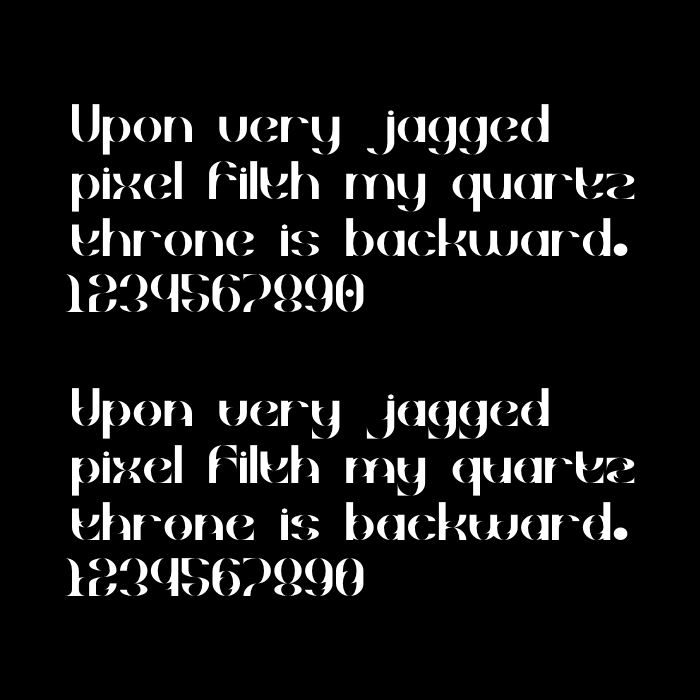
Goud Font
by Pixel Kitchen
A family of two fancy-ish fonts that also work well for body text. "Goud" stands for "Garden of Unearthly Delights".
I recently made a pixel version, which I have now added to this page. Have fun!